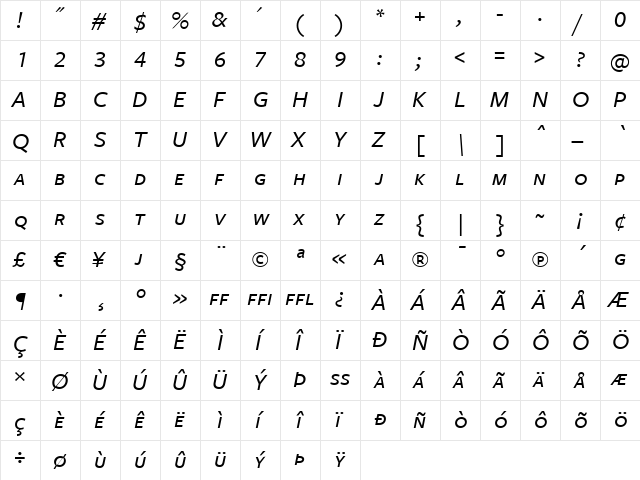
FreightSans MediumItalicSC Font Preview
FreightSans MediumItalicSC
FreightSans MediumItalicSC Font Details
| Style | MediumItalicSC |
| Foundry | Joshua Darden & Phil's Fonts, Inc |
| Designer | Joshua Darden |
Design Context for FreightSans Typeface
FreightSans offers clean, dependable letterforms without strong stylistic allegiance, making it a practical choice for designers who need flexibility. Its italic angle brings a sense of urgency and motion to the letterforms.